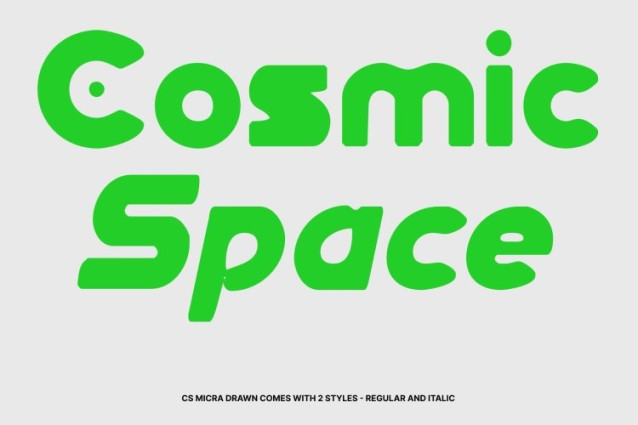
CS Micra Drawn Font
CS Micra Drawn Font This is a futuristic display font created to express modern energy and cutting-edge style. Built on a strong techno foundation, it combines industrial influence with clean geometric construction. The added drawn texture introduces an artistic, hand-crafted edge, giving the font a unique balance between digital precision and expressive character.
Geometric Structure with Industrial Strength
Defined by sharp angles, solid lines, and balanced proportions, this font delivers a mechanical and structured appearance. Its geometric anatomy feels intentional and powerful, reinforcing a sense of control and technical confidence. The drawn effect subtly softens the rigid forms, adding depth and personality without losing its bold, futuristic identity.
Experimental Expression with Artistic Detail
This font embraces experimentation through unconventional shapes and modern construction. The hand-drawn texture enhances its visual rhythm, making each character feel dynamic and alive. This blend of futuristic form and artistic imperfection creates a progressive look that stands out from typical techno fonts.
Perfect for Branding, Logos, and Futuristic Visuals
Designed for high-impact use, this font performs beautifully in branding, logos, posters, book covers, and promotional materials. Its techno-industrial style combined with a drawn, artistic finish makes it ideal for technology brands, creative studios, urban visuals, and futuristic concepts that demand strength, innovation, and expressive modernity.